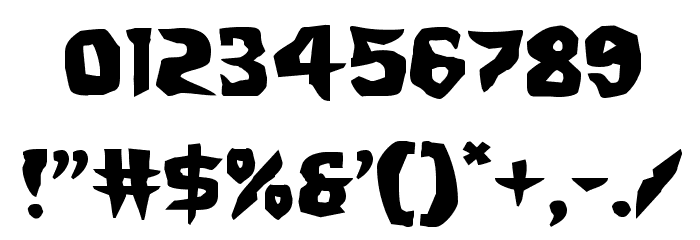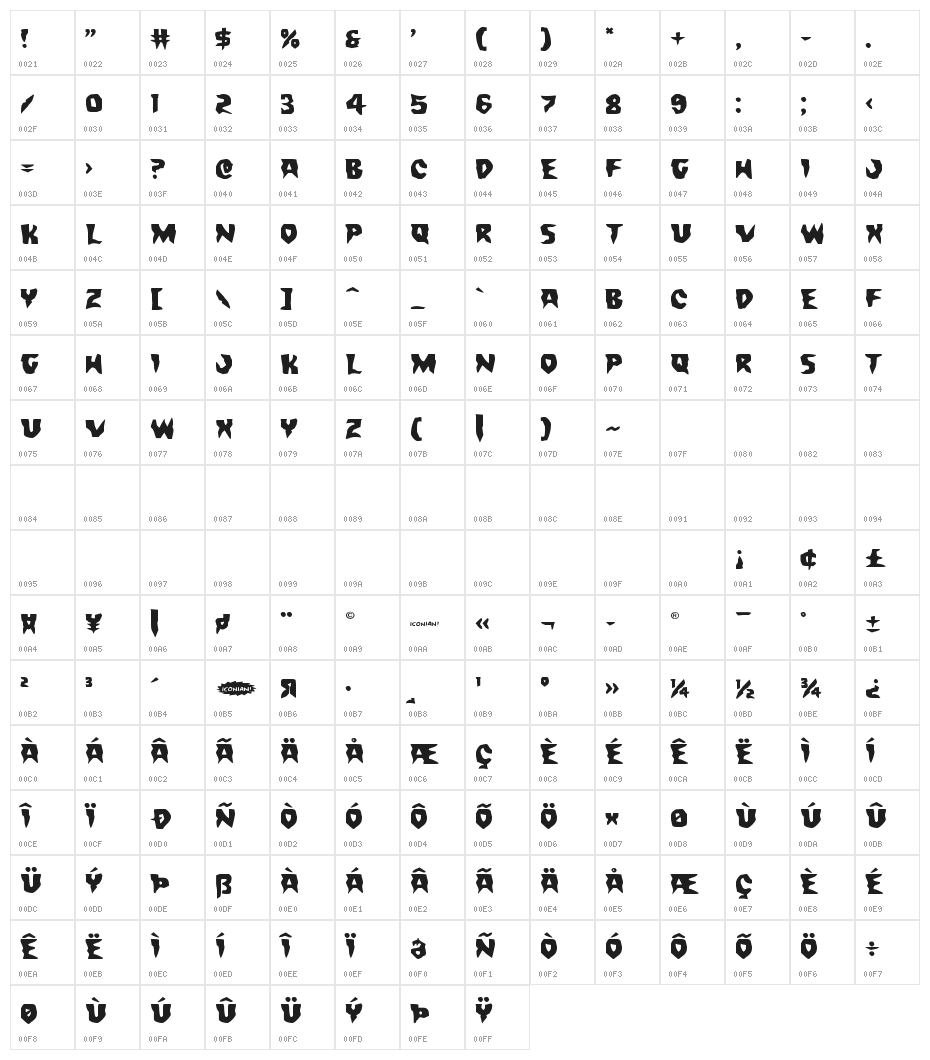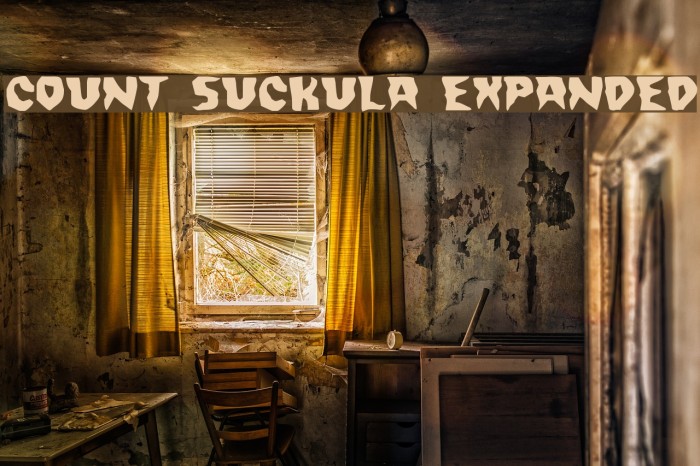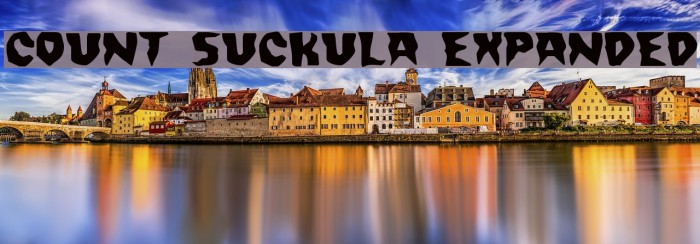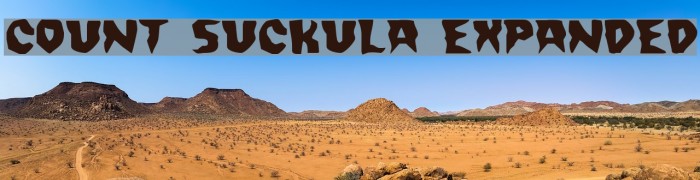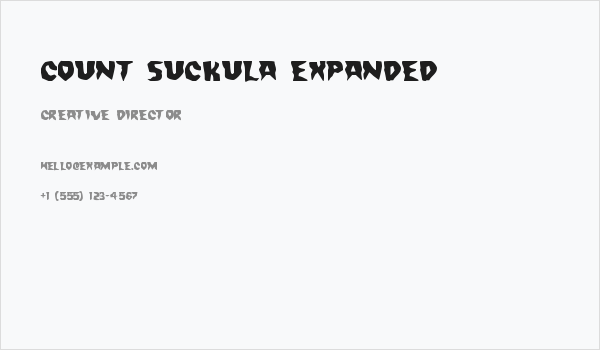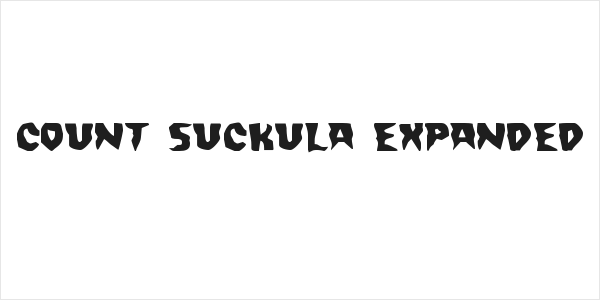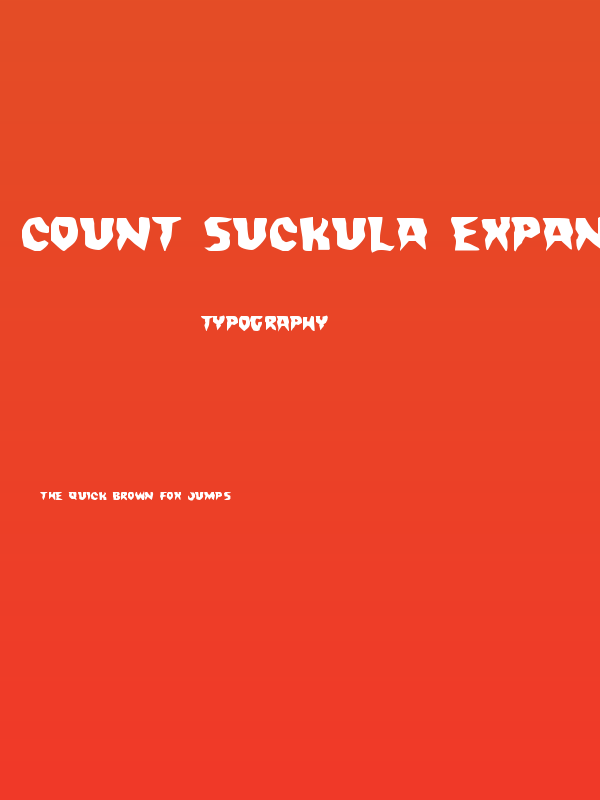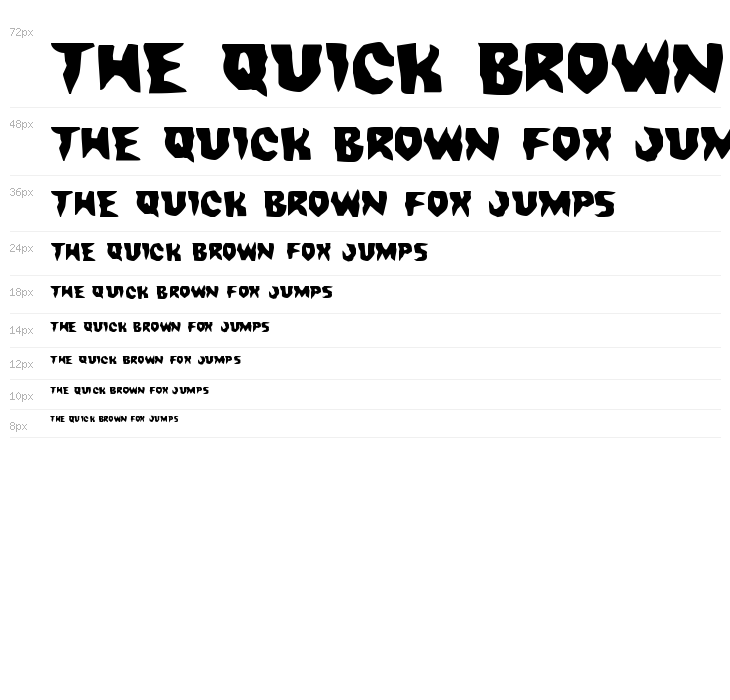
Count Suckula Expanded Font
Count Suckula Expanded Description
This font features a bold and dramatic style with sharp, angular edges and a slightly irregular form, giving it a spooky, gothic appearance. The characters are heavily stylized, with each letter exhibiting unique cuts and angles that contribute to a sense of movement and energy. The uppercase and lowercase letters maintain a consistent design theme, while the numbers and special characters complement the overall aesthetic. This font's distinctive look makes it ideal for projects that require a touch of horror or fantasy, such as Halloween-themed designs, movie posters, or video game graphics.
COUNT-SUCKULA-EXPANDED UPPERCASE
COUNT-SUCKULA-EXPANDED LOWERCASE
COUNT-SUCKULA-EXPANDED OTHER CHARS
| Overall Style | Gothic, Spooky, Decorative |
| Use Case | Headlines, Posters, Themed Graphics |
| Proposed Projects | Ideal for Halloween designs, horror movie posters, and fantasy-themed graphics. |